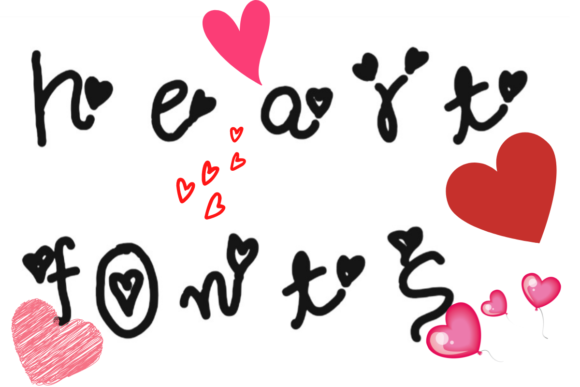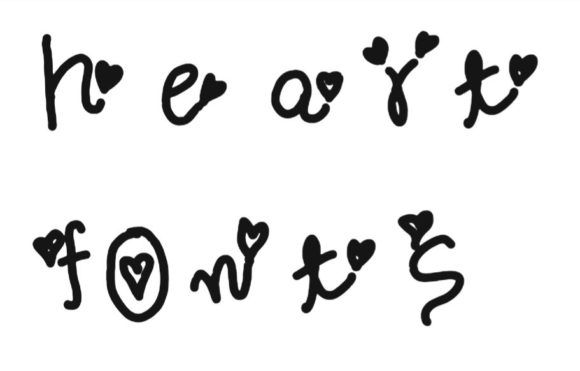
Hearts Font
About Hearts Font
Hearts is a romantic and sweet calligraphy typeface with characters that dance along the baseline. It will add a romantic feel to any design project that you wish to create!